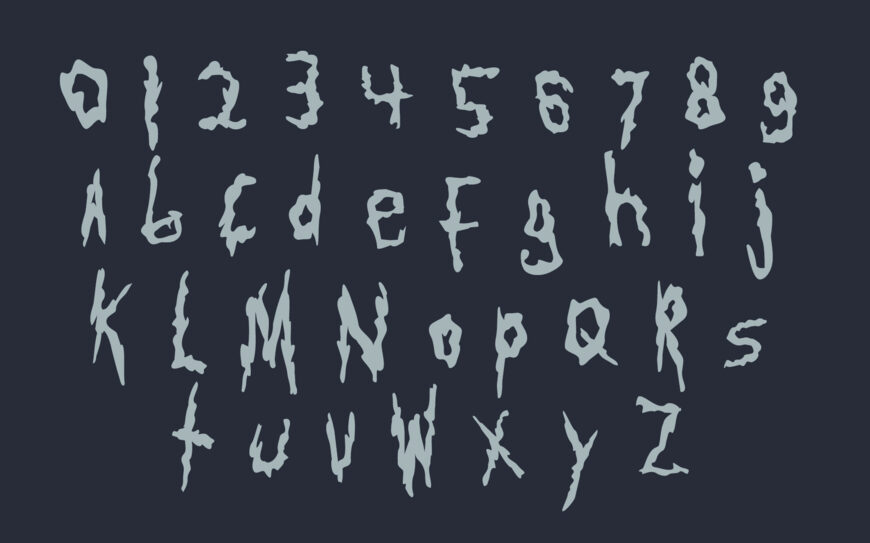
Get Schwifty is a bold display font inspired by the distinctive title lettering of Rick and Morty. Created by Jonizaak, it features quirky, irregular shapes that capture the show’s playful sci-fi aesthetic.
The font includes basic letters and numbers, making it suitable for posters, logos, fan art, headlines, social media graphics, and other creative projects. It was released as a free font for personal and commercial use, with attribution appreciated by the designer.